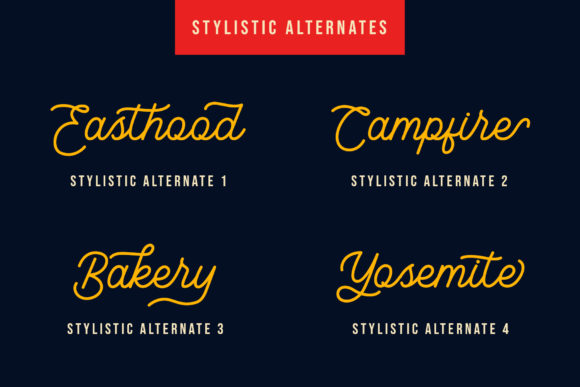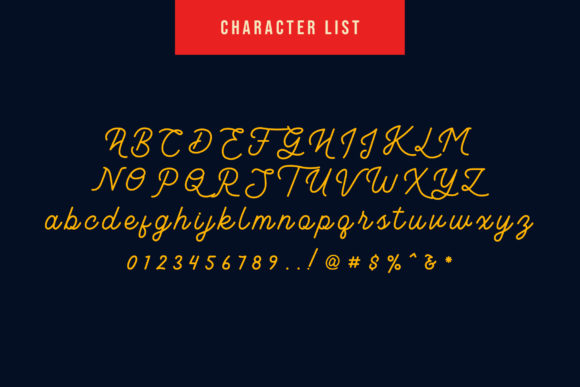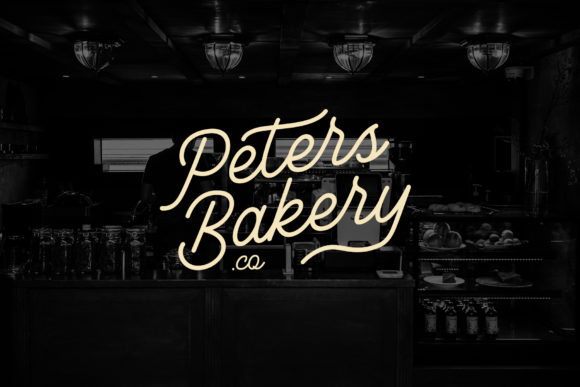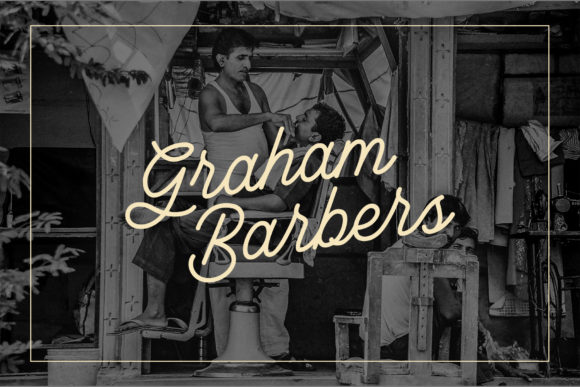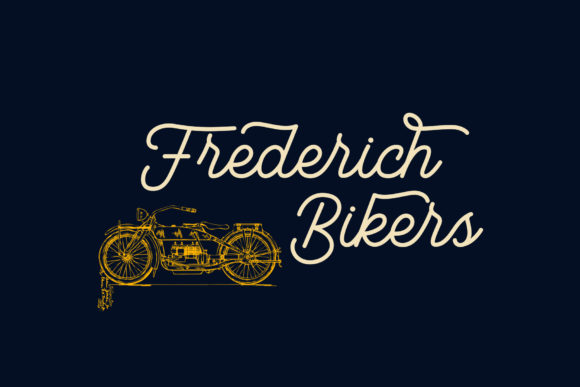
Rutherford Font
About Rutherford Font
The Rutherford is an authentic and vintage typeface. It was inspired by nature adventures.
It can be used for logos, clothing brands, vintage designs, and much more!